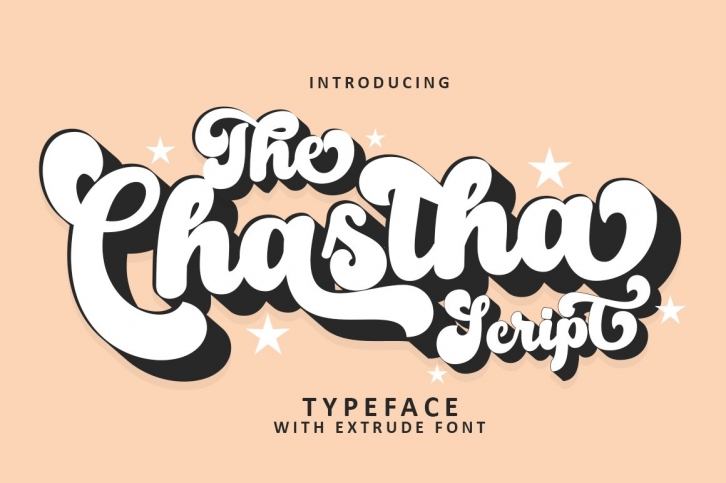
The Chastha-Retro is a trendy and unique font with an authentic style. It was designed by madjackfont and it's a great choice for creative people who need such a font. It was released on February 20, 2022 and the file size is 10.39 MB. The Chastha-Retro will add an organic vibe to any design idea!